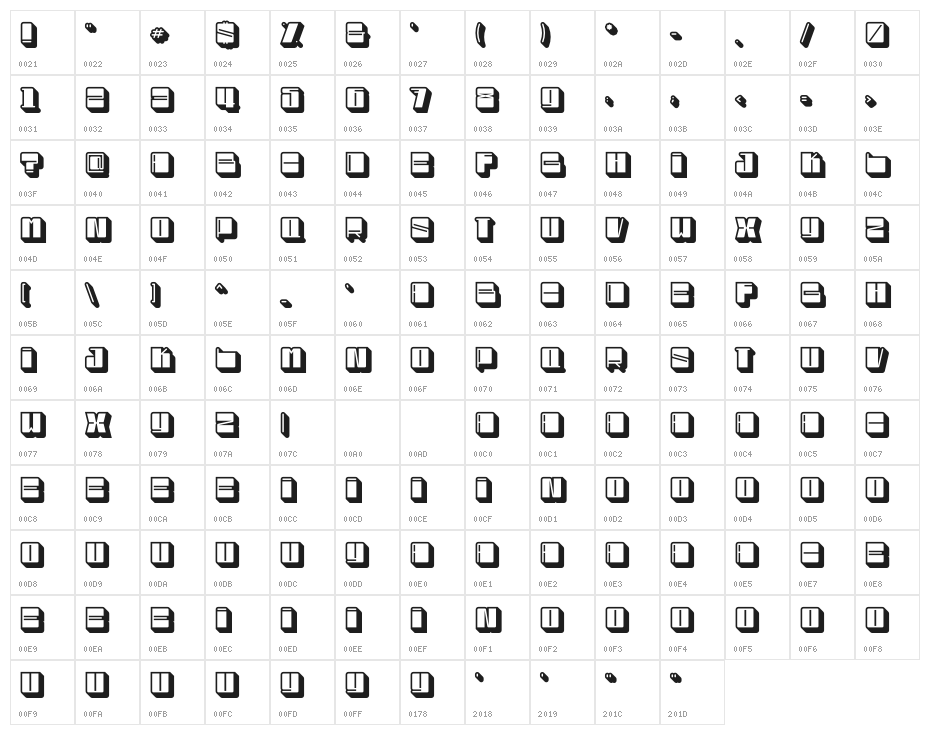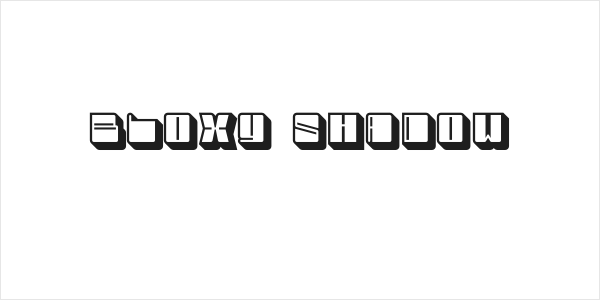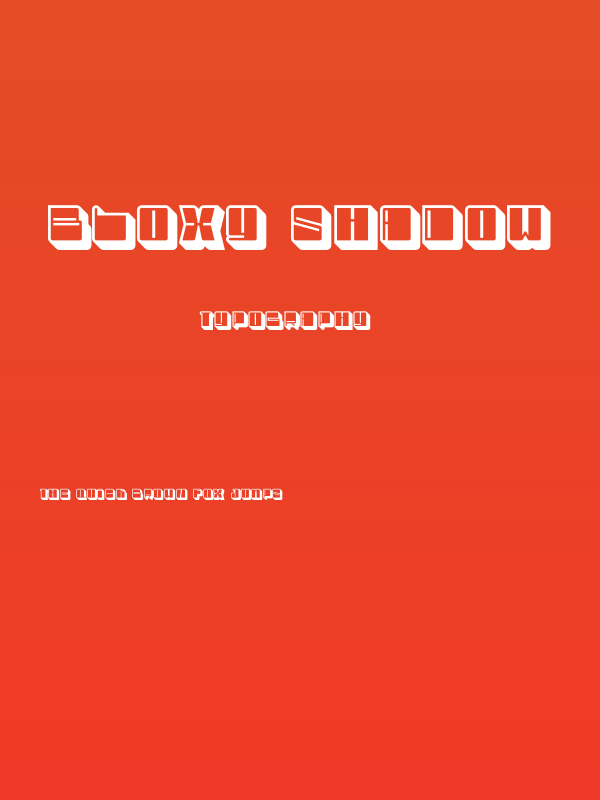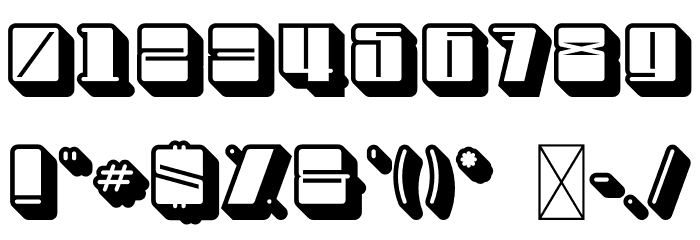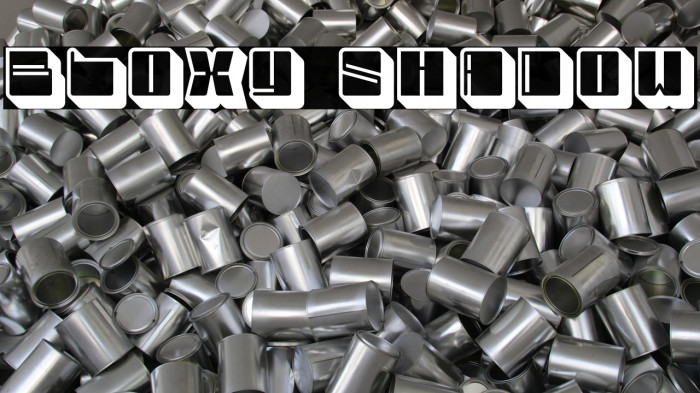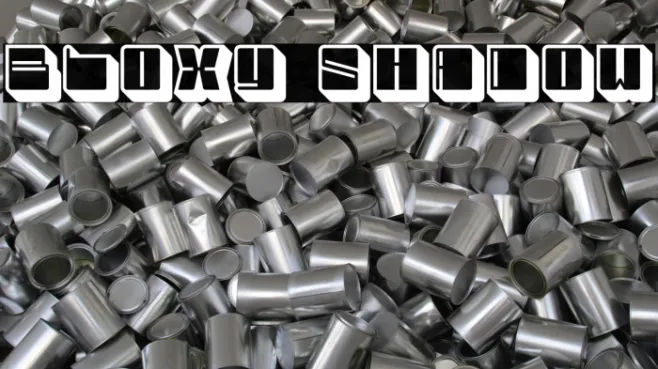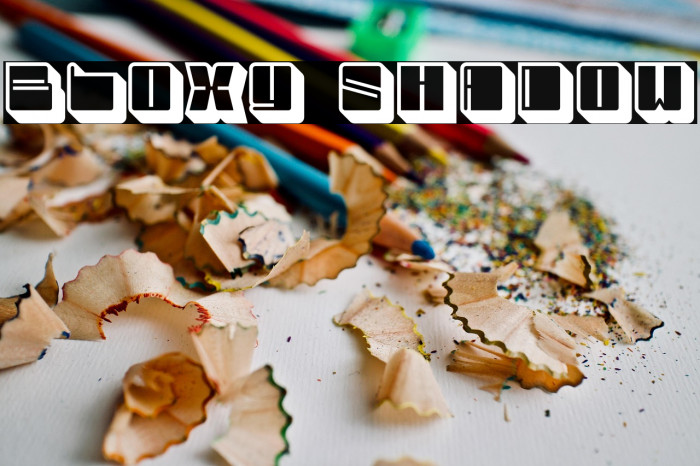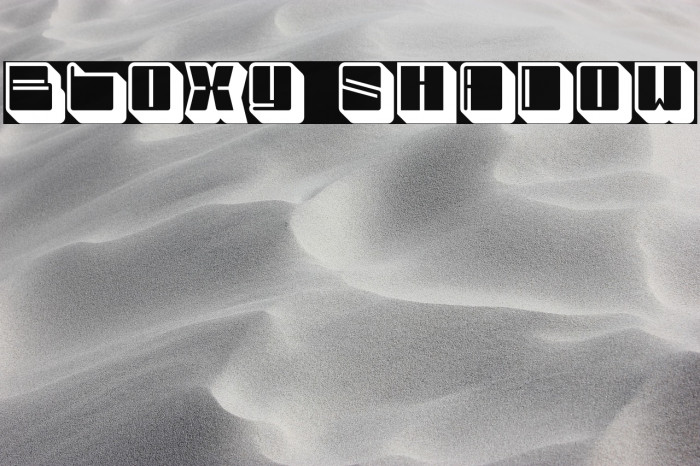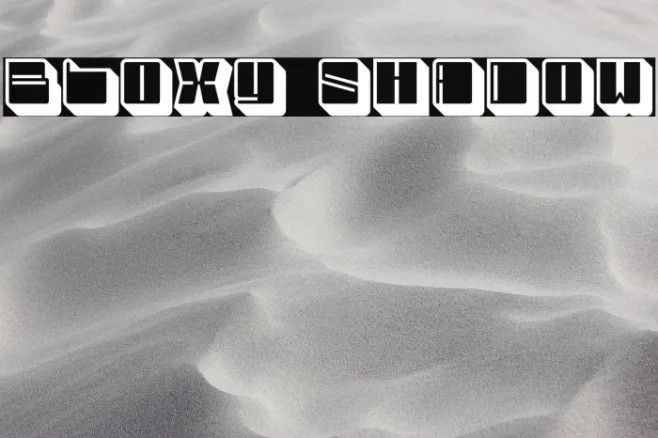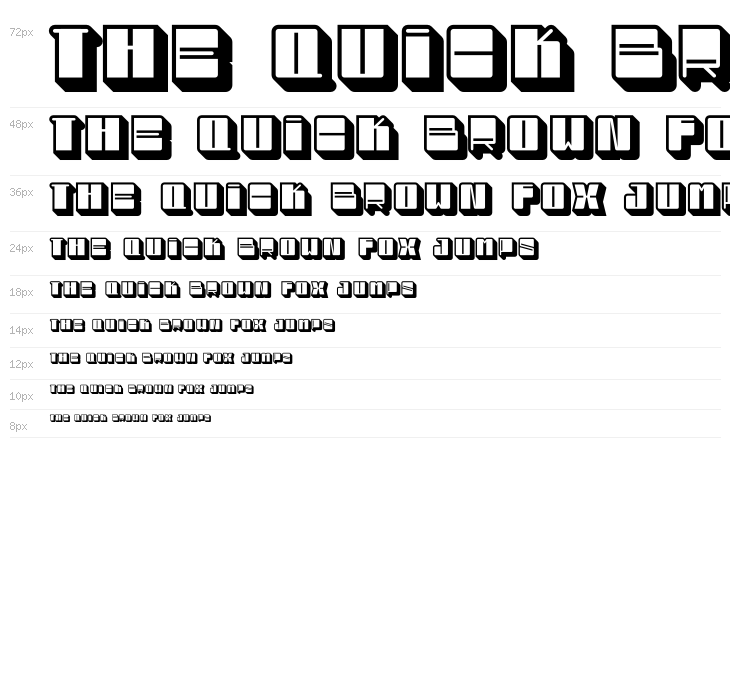
Bloxy Shadow Font
Bloxy Shadow Description
This font features a bold, three-dimensional block style with a distinct shadow effect that gives it a striking, impactful appearance. The characters are uniformly wide, with a geometric structure that emphasizes their solid, sturdy form. The shadowing adds depth and a sense of movement, making each letter stand out prominently. The font is highly stylized, with a modern, edgy feel that is perfect for making a statement. Its unique design is both playful and assertive, making it suitable for a variety of creative applications.
| Proposed Projects | Ideal for posters, headlines, logos, and any design needing a bold, eye-catching typeface. |